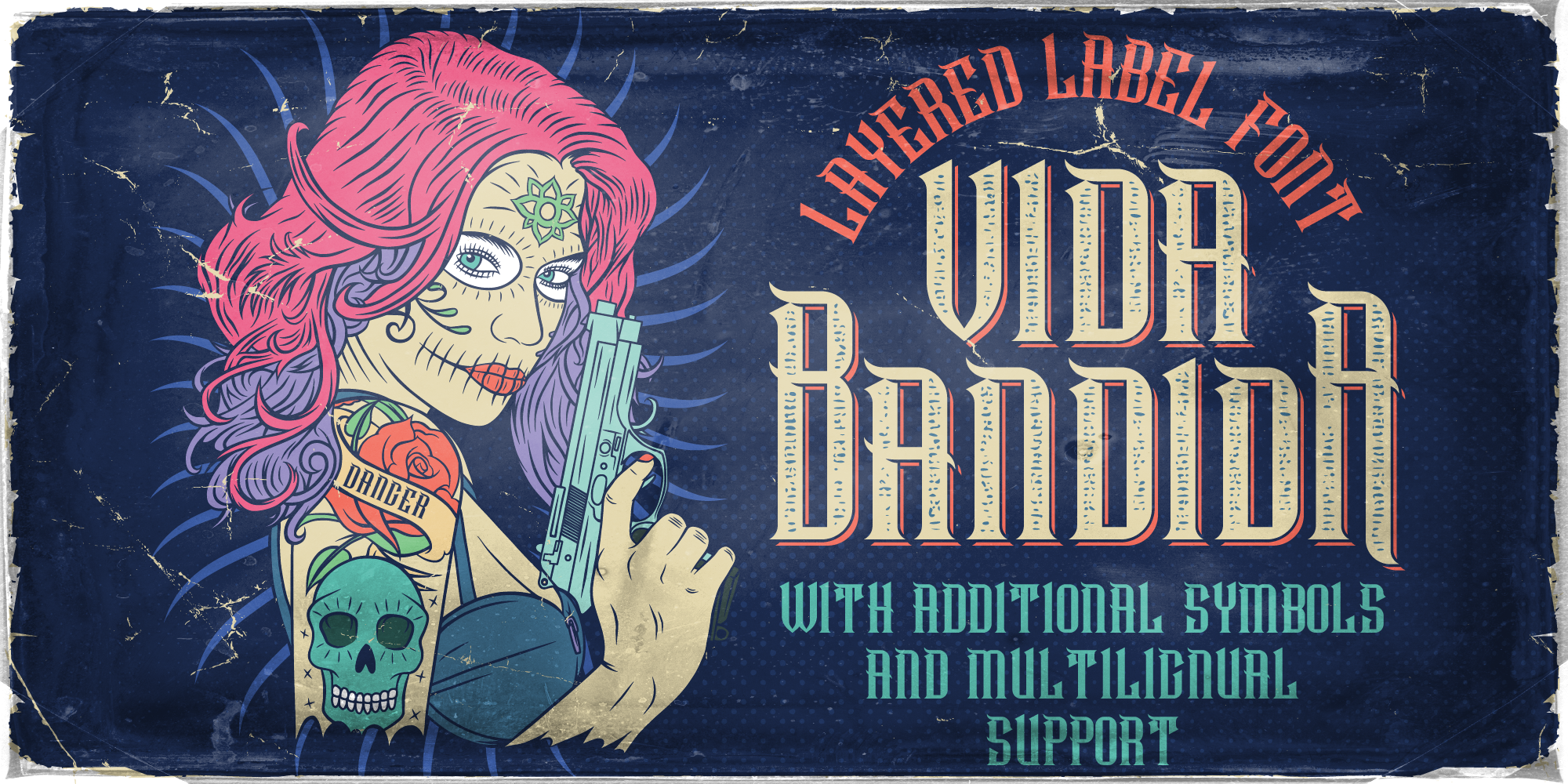
The Vida Bandida Font is ideal for Latin music branding, street art projects, rebellious fashion designs, underground club promotions, urban lifestyle campaigns, edgy restaurant branding, alternative music album covers, and bold advertising materials. This dynamic typeface works exceptionally well for projects that celebrate Latin culture, street credibility, and rebellious spirit.
What makes Vida Bandida Font exciting is its authentic street swagger and Latin-inspired character that captures the essence of urban rebellion and cultural pride. The font features bold, edgy letterforms with distinctive personality that reflects the energy of street culture while maintaining excellent readability. Its rebellious spirit brings authenticity and attitude to any design project, making it perfect for brands targeting urban and Latin communities.
The Vida Bandida Font family includes various weights and styles: Regular, Bold, Condensed, Outline, Graffiti variations, and Extended character sets with special Latin-inspired ornaments and street art decorative elements. Each style maintains the font's distinctive rebellious character while offering designers flexibility to create compelling compositions that celebrate urban Latin culture.
Perfect for music labels, streetwear brands, and Latin-focused businesses, Vida Bandida Font Free Download offers designers an authentic solution for urban cultural communication. The font's distinctive street character makes it suitable for both digital and print applications where cultural authenticity and edge are paramount, ensuring memorable brand recognition while conveying Latin pride and urban rebellion effectively.